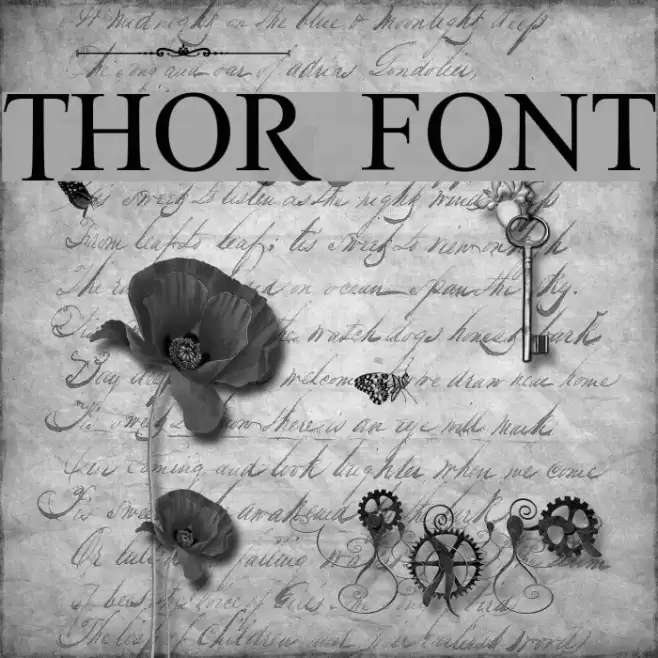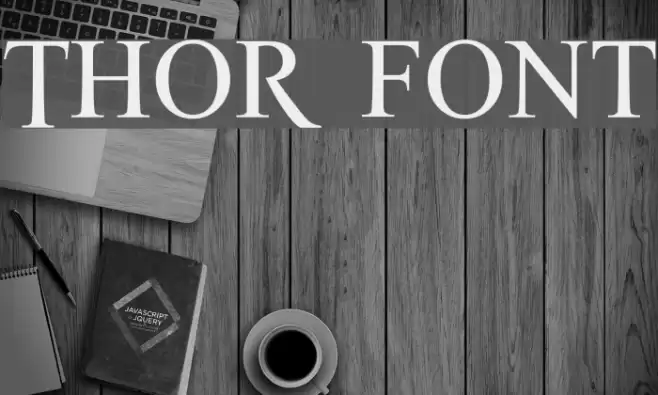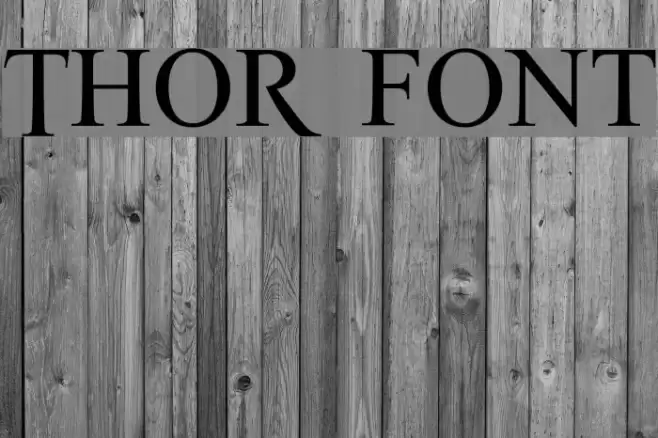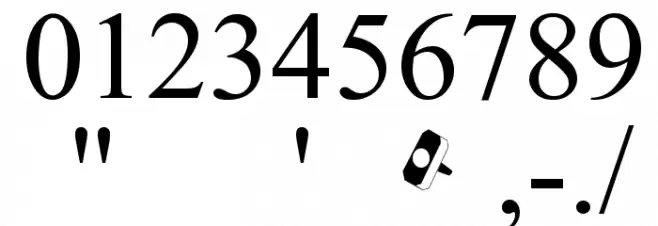
THOR Font
THOR Description
This font features a classic serif style with elegant and refined strokes. The uppercase letters are bold and commanding, while the lowercase letters maintain a consistent and harmonious flow. The numerals are well-proportioned and align seamlessly with the overall design. Special characters are thoughtfully integrated, enhancing the font's versatility. The serifs are pronounced, adding a touch of sophistication and tradition. This font is suitable for projects that require a formal and authoritative appearance, such as editorial design, book covers, and branding materials.
A classic serif font with elegant strokes and pronounced serifs from Quirky fonts.
- Proposed Projects: Ideal for editorial design, book covers, branding materials, and formal invitations.
- Overall Style: Classic